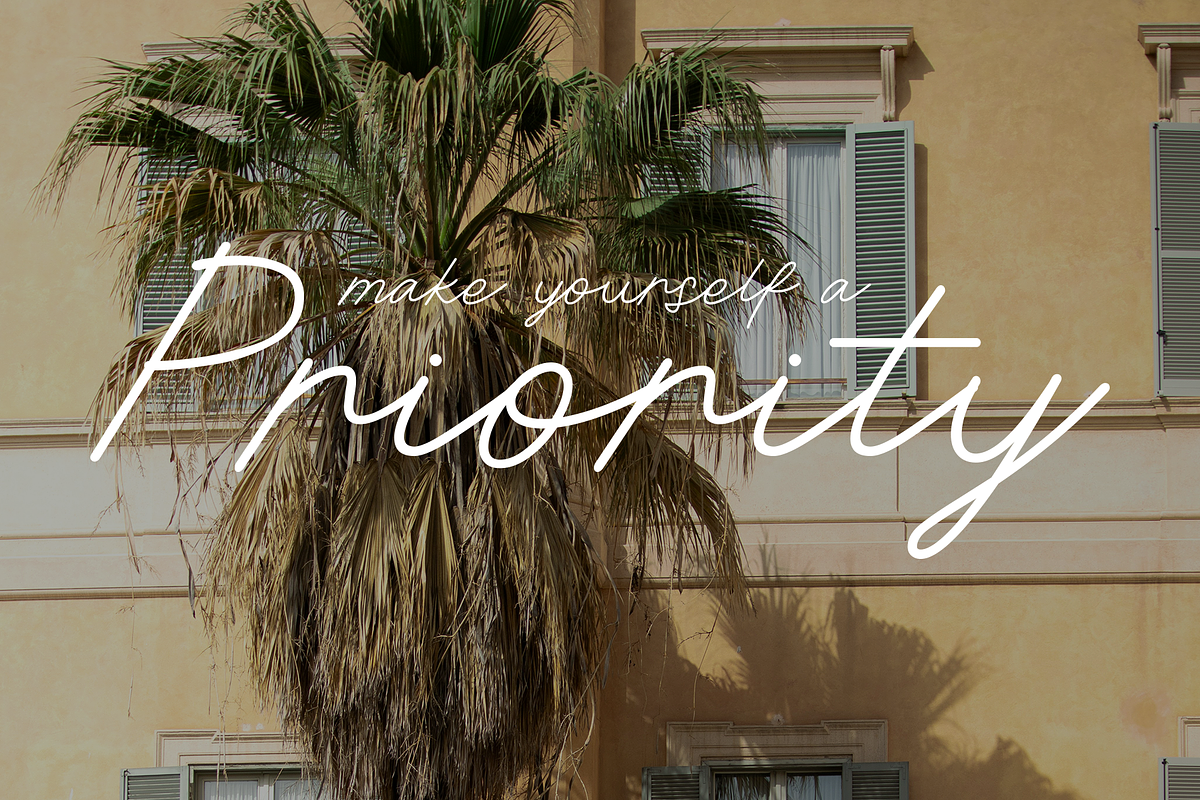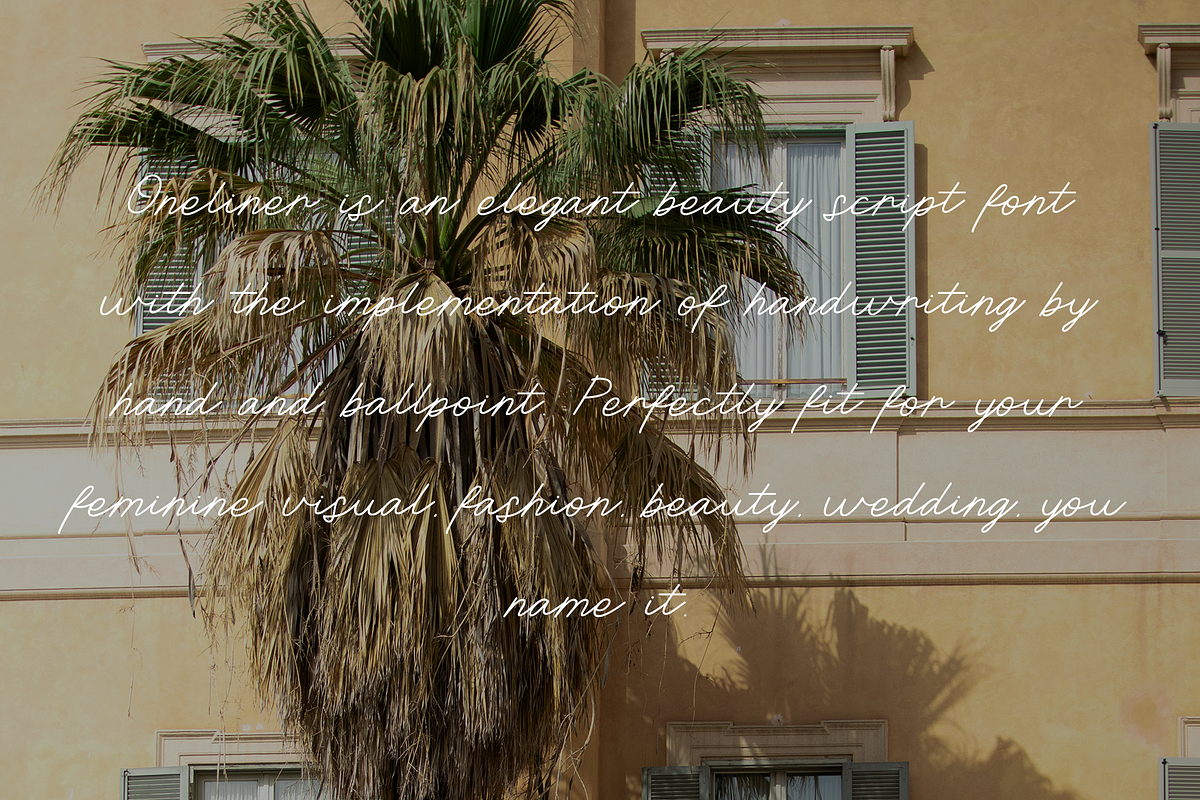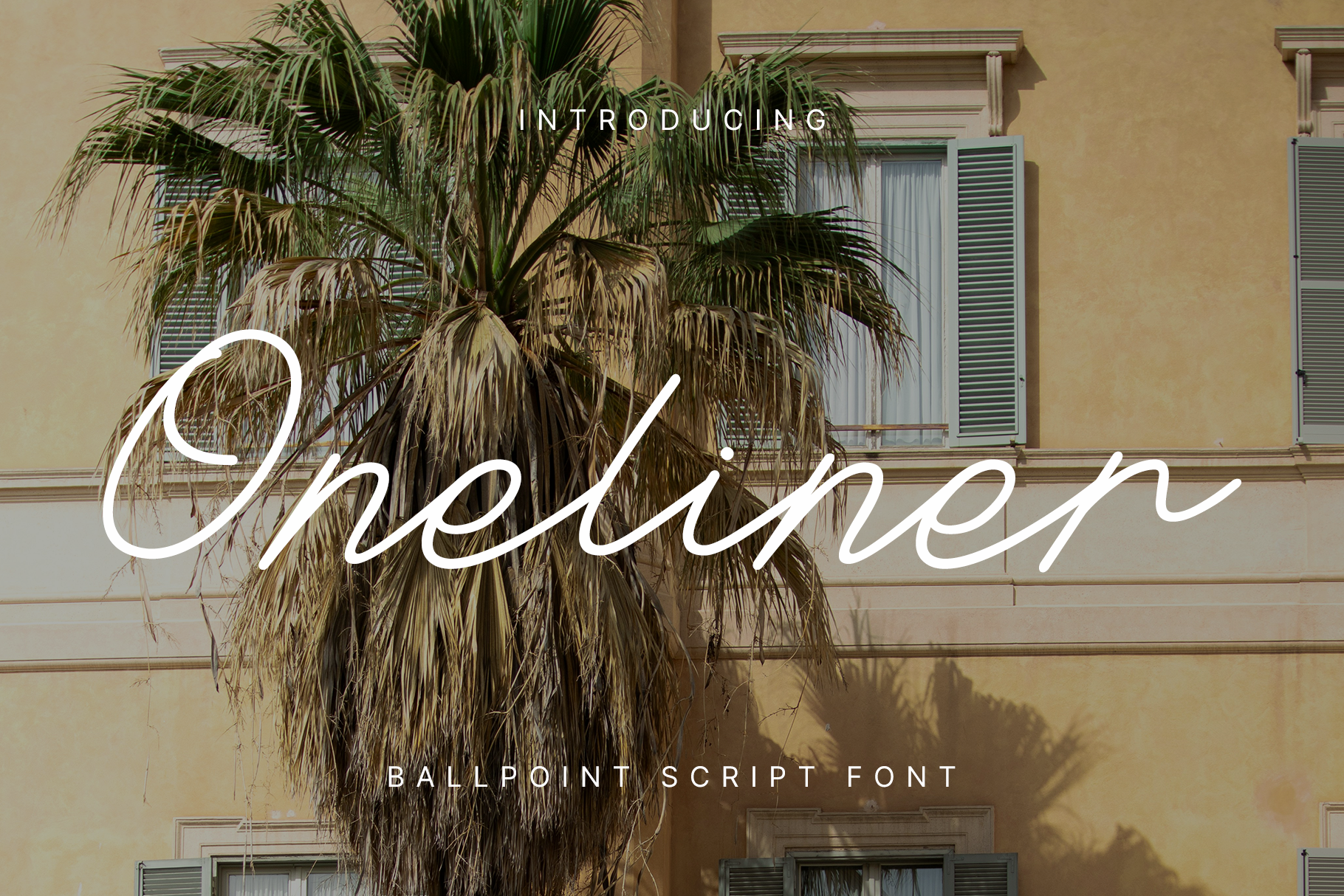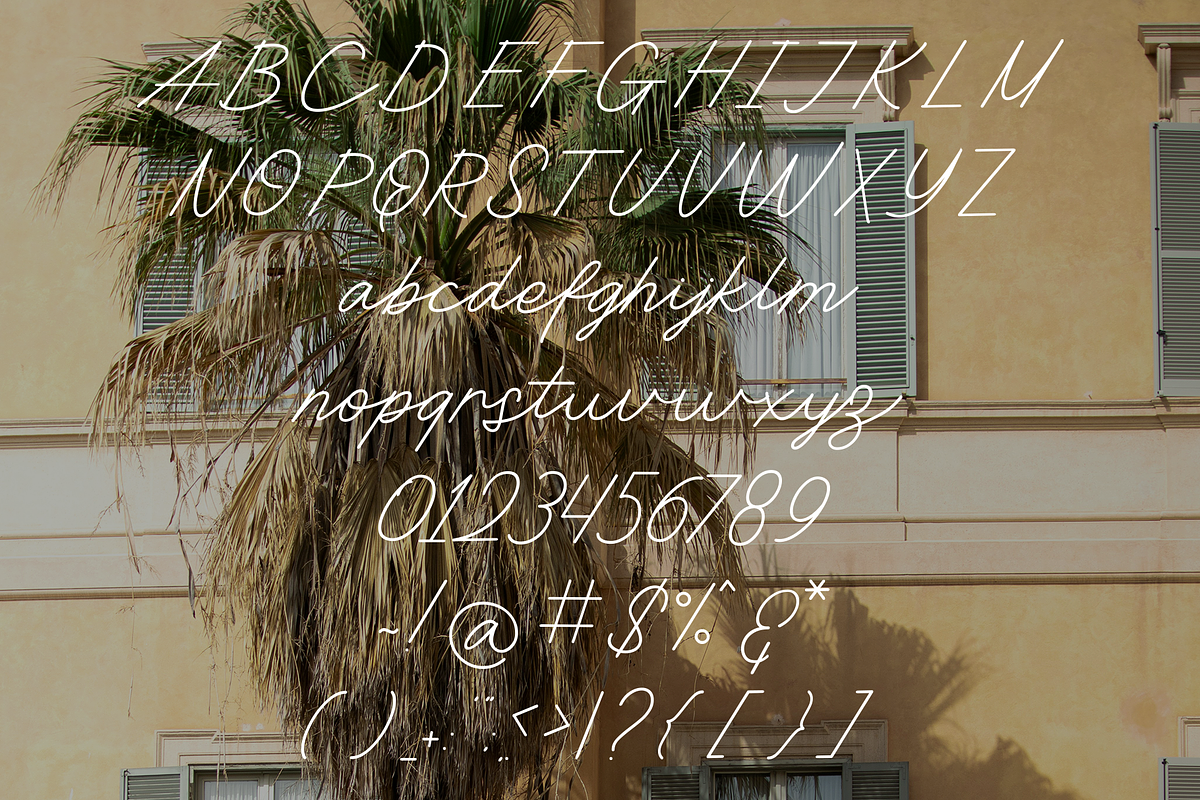
Oneliner - Ballpoint Script Fonts
Oneliner is an elegant beauty script font with the implementation of handwriting by hand and ballpoint. Perfectly fit for your feminine visual, fashion, beauty, wedding, you name it.